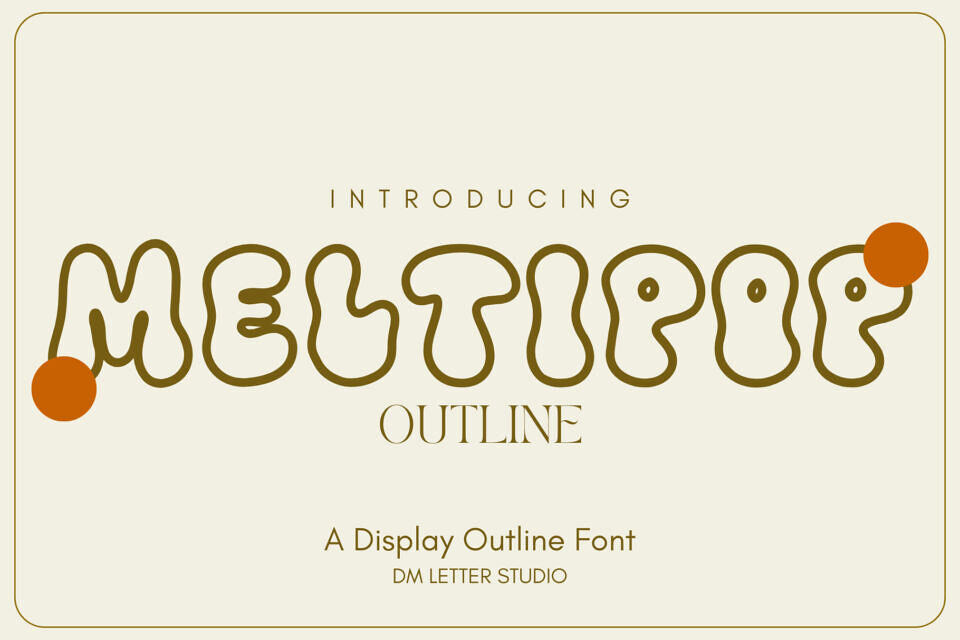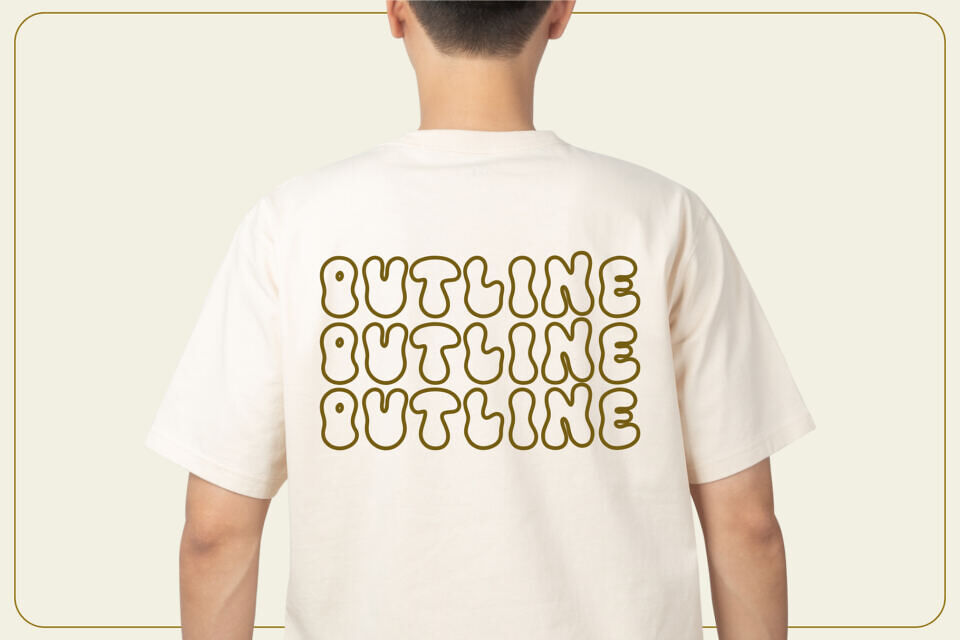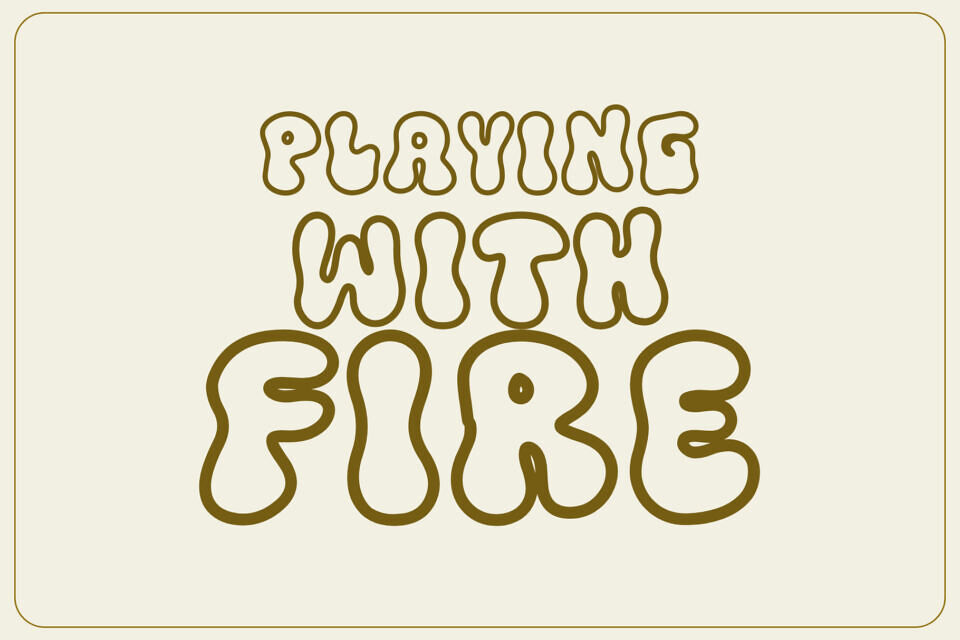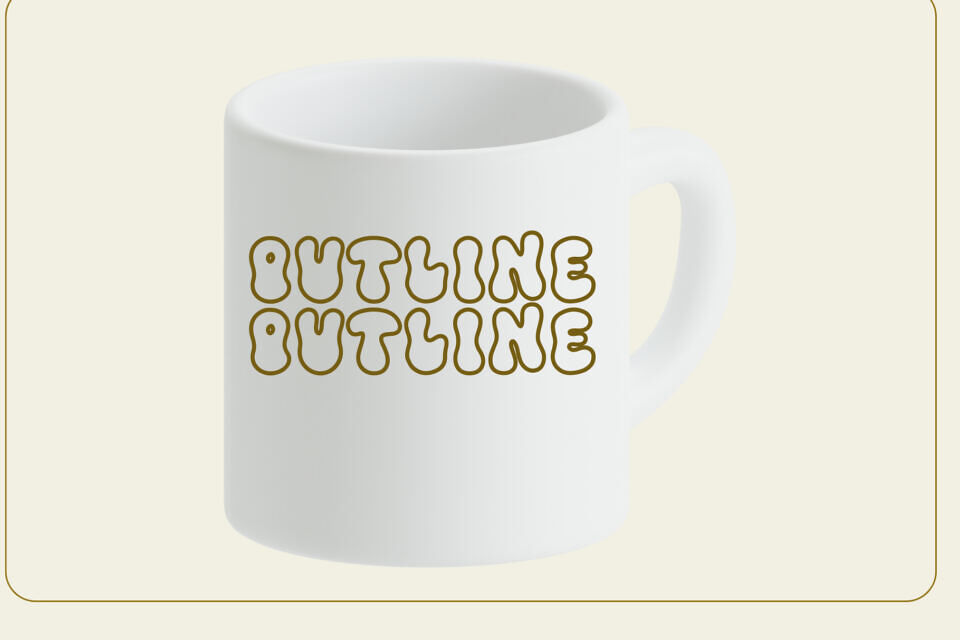
Meltipop Outline Font brings bubbly pop-art energy with clean readability. Letters feel round and friendly. Hollow strokes keep titles light while staying bold on shirts, stickers, posters, and thumbnails.
Use it for kids’ merch, summer launches, party kits, candy brands, and upbeat social posts. Moreover, the outline style loves glow, gradients, and layered shadows, so quick mockups look polished fast.